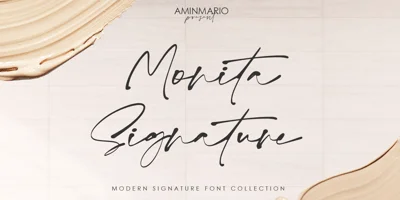
Monita Signature Font
The Monita Signature Font is perfect for luxury wedding invitations, personal branding projects, boutique fashion logos, handwritten thank-you cards, elegant stationery designs, premium certificate templates, personal blog headers, and sophisticated social media graphics. This exquisite typeface works beautifully in applications where personal touch and signature elegance are essential, making it ideal for brands and individuals who want to communicate authenticity and refined personal style.
What makes Monita Signature Font exciting is its authentic handwritten character and flowing elegance that captures the intimacy of personal correspondence. The font's natural script variations and organic letterforms create an atmosphere of genuine warmth and personal connection, making it perfect for brands that want to establish intimate relationships with their audience through handcrafted authenticity. Its sophisticated curves and balanced proportions ensure that every application feels personally crafted and thoughtfully designed.
The Monita Signature Font family typically includes regular and bold script variations, often featuring stylistic alternates, connecting ligatures, and decorative swashes that enhance its handwritten authenticity. Many versions include contextual alternates that automatically adjust letter connections, creating natural handwriting flow that maintains consistency while preserving the spontaneous character of genuine signature writing.
For designers creating projects that require personal authenticity and signature sophistication, Monita Signature Font provides exceptional elegance. Its ability to instantly communicate personal touch and genuine craftsmanship makes it an invaluable choice for luxury brands, wedding professionals, and any project requiring typography that embodies the timeless appeal of beautiful handwritten correspondence and personal artistic expression.